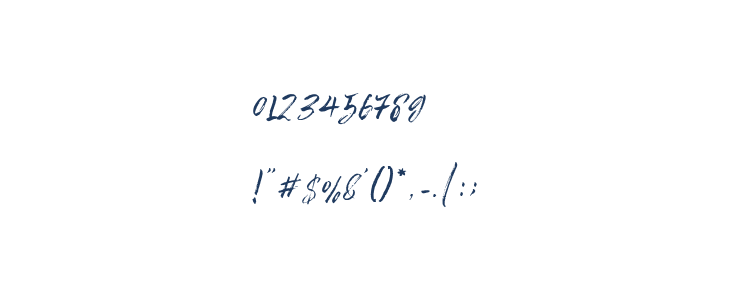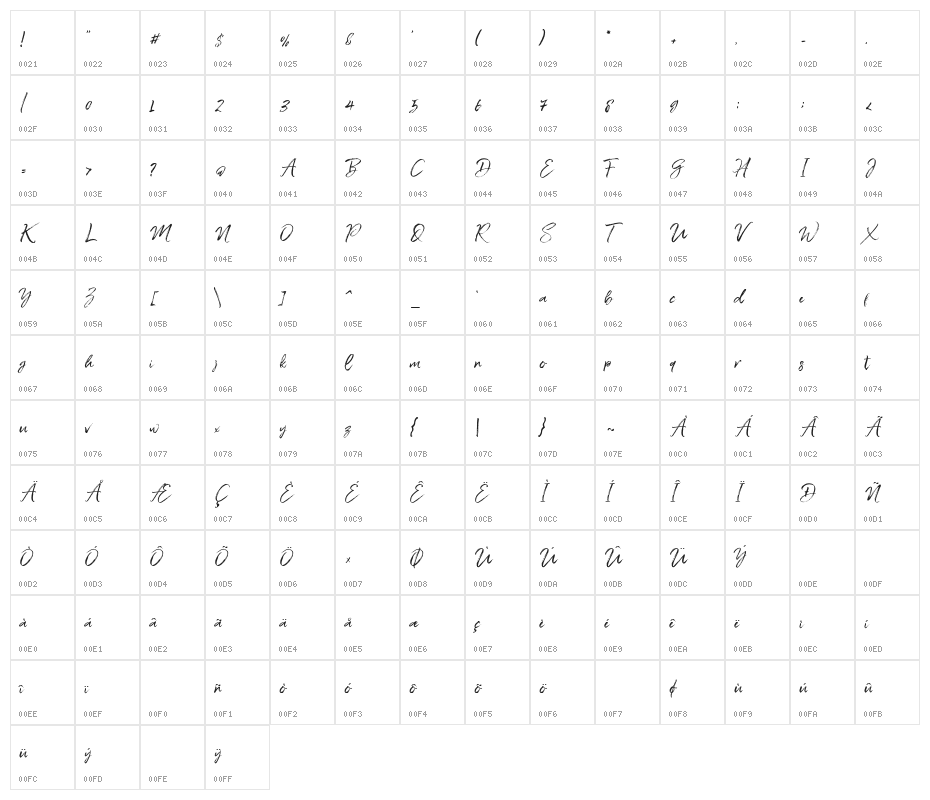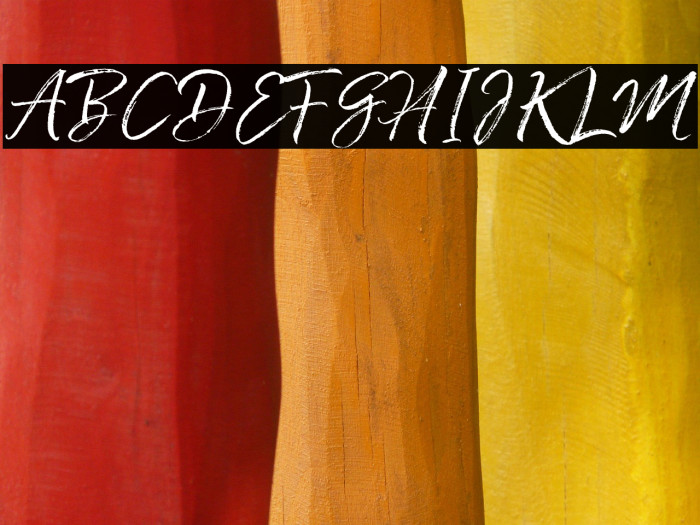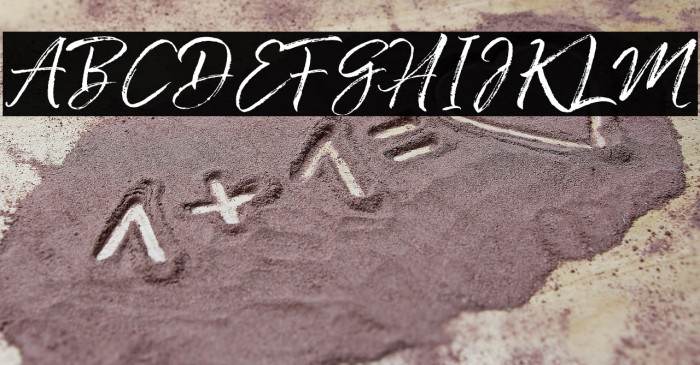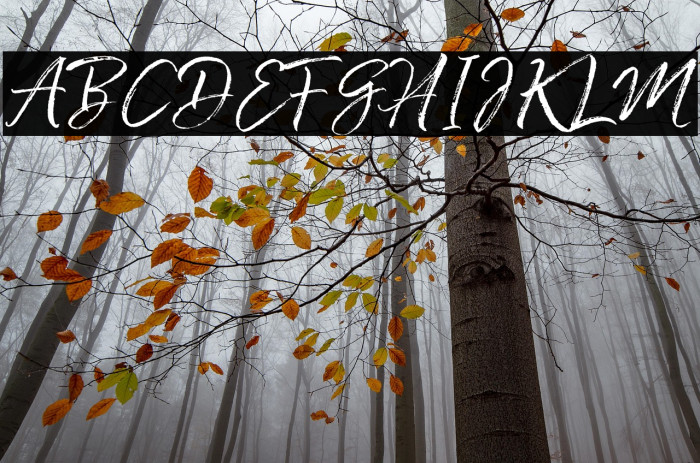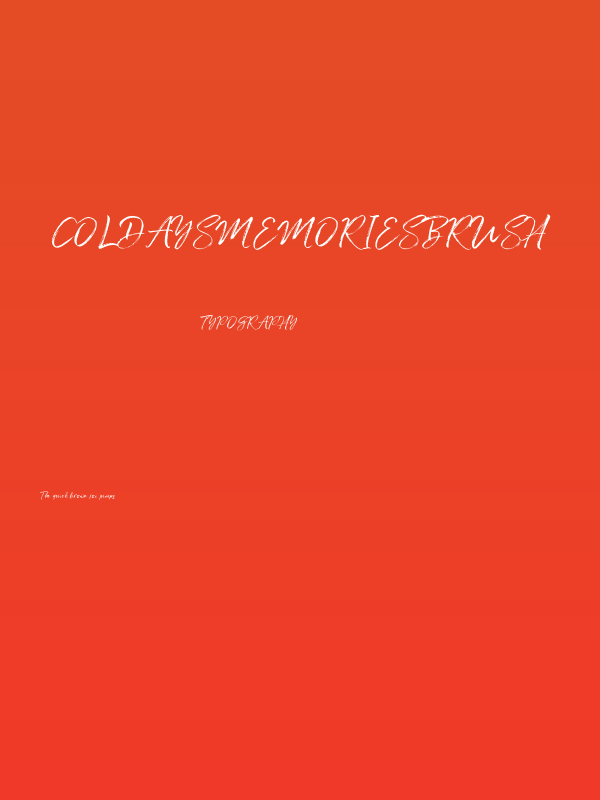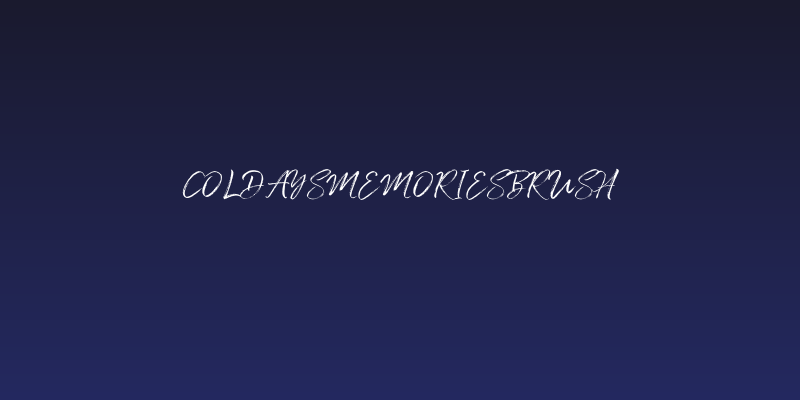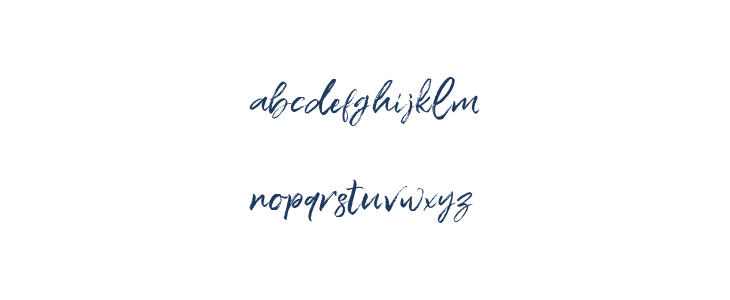
ColdaysMemoriesBrush Font
ColdaysMemoriesBrush Description
This font exudes a dynamic and expressive style, characterized by its brush-like strokes that convey a sense of fluidity and movement. The letters are crafted with varying thicknesses, creating a lively and artistic appearance. The uppercase letters are bold and prominent, while the lowercase letters maintain a consistent flow, enhancing readability. The numerals and special characters are designed with the same brush effect, ensuring a cohesive look across all elements. This font is perfect for projects that require a personal touch or an artistic flair, such as invitations, greeting cards, or branding materials.